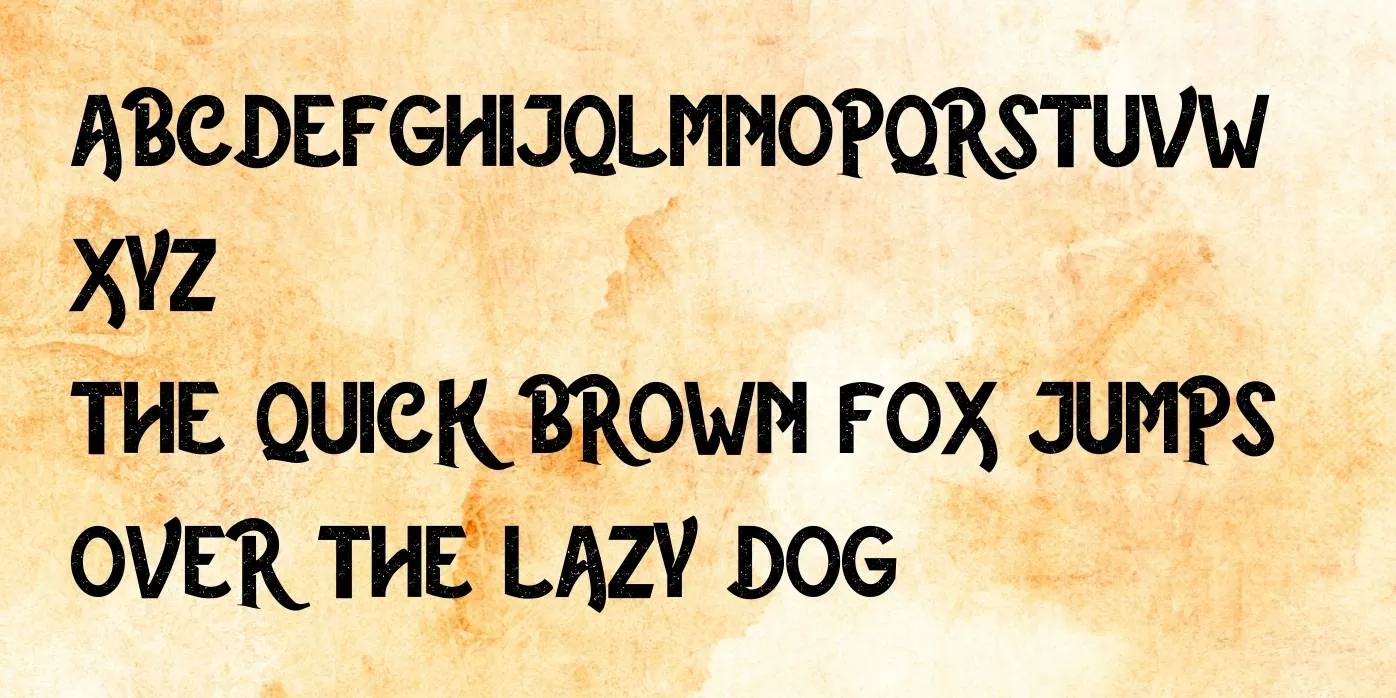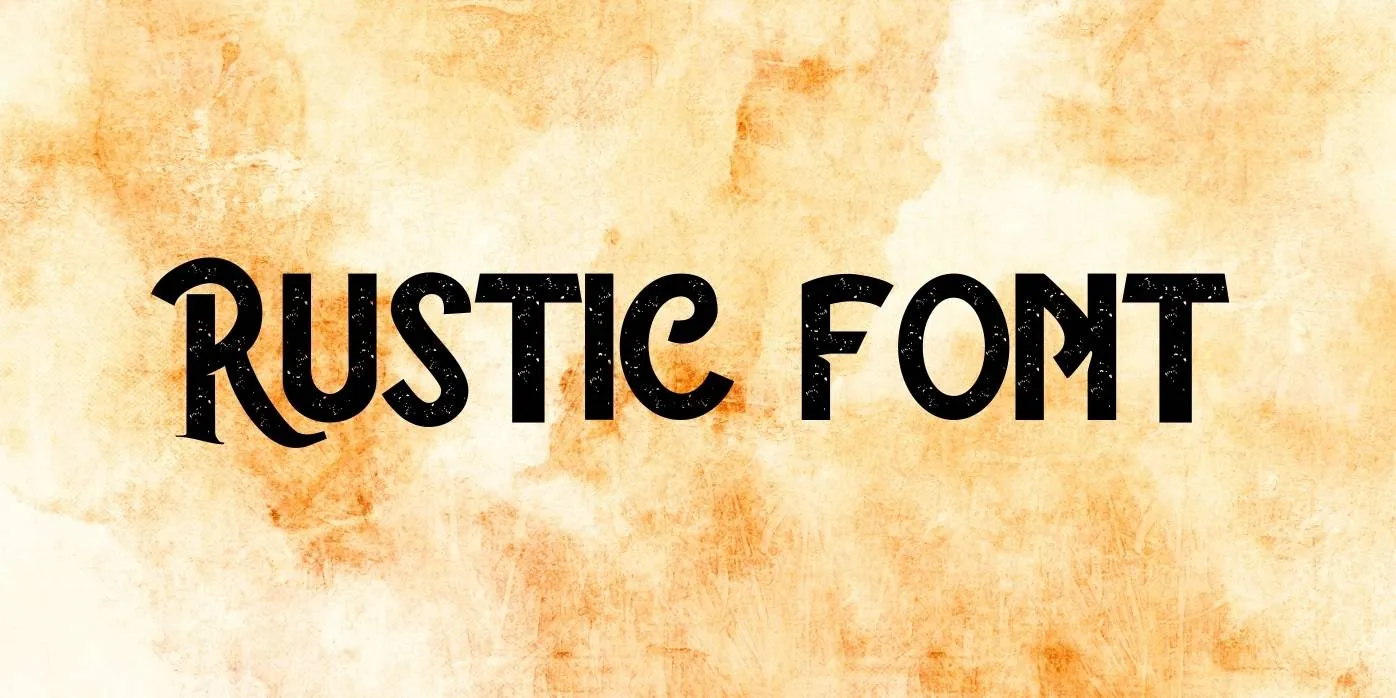
The Rustic Font
Introducing the beautiful rough typeface which is known by its own name Rustic Font. The font belongs to a Retro typeface family and the designer of this typeface is Nirmana Visual. That seems Professional in typography artwork. This demo font has very unusual glyphs includes Uppercase and Lowercase letters, symbols, and Number / Numeral also and all character has Opentype Layout and Truetype Outlines, etc.
Its Rustic characters provide a very stunning look to specific design. Amelia script font is a stunning font that allows you to produce excellent marriage invitations and private society snapshots. It’s far a thunderstorm font¬†that components excellent balancing with a median weight sans serif.